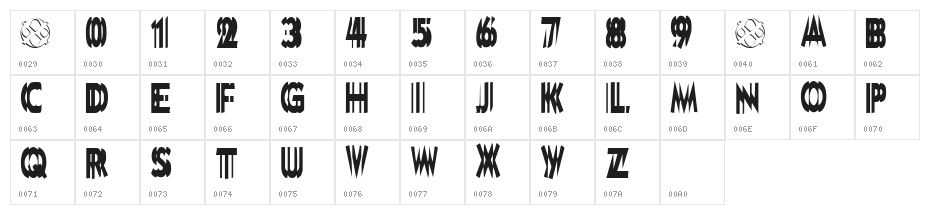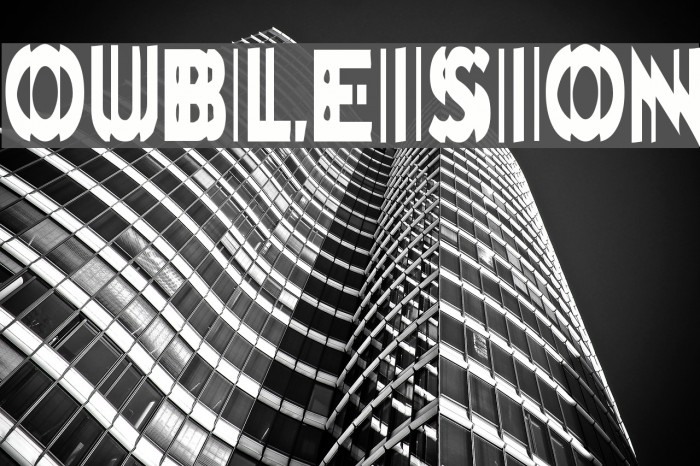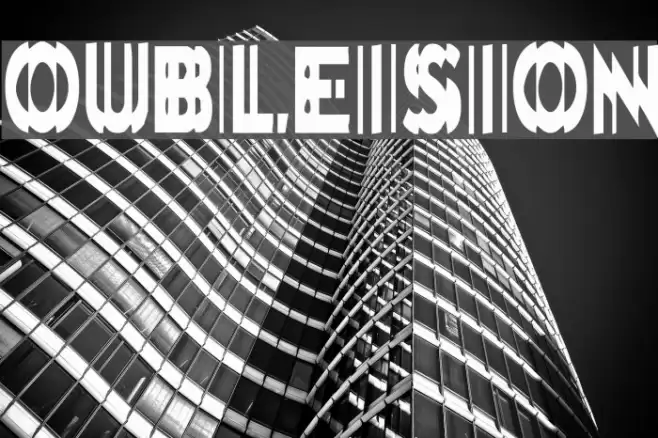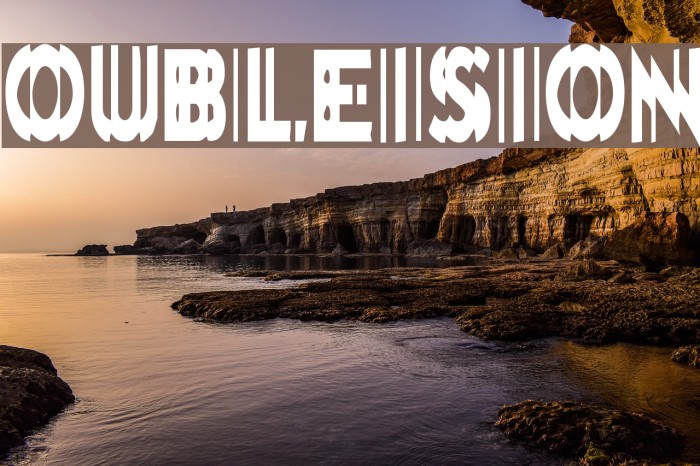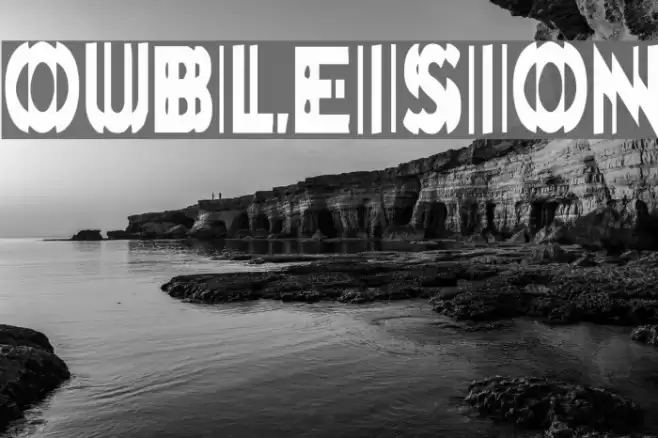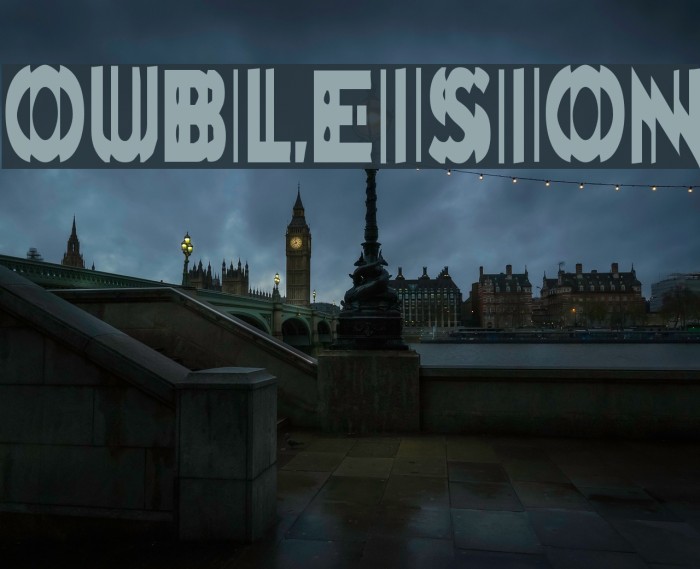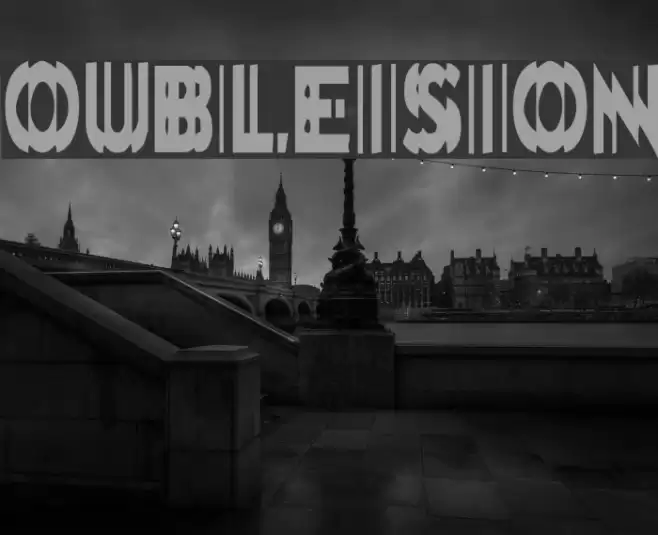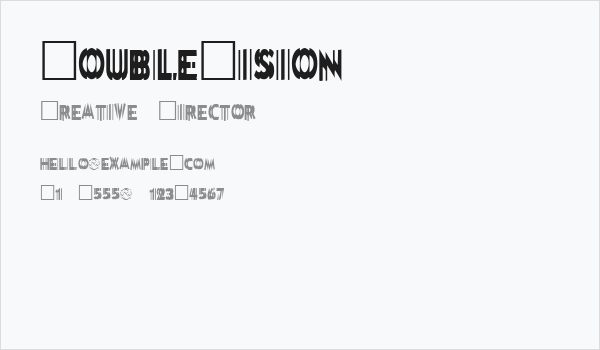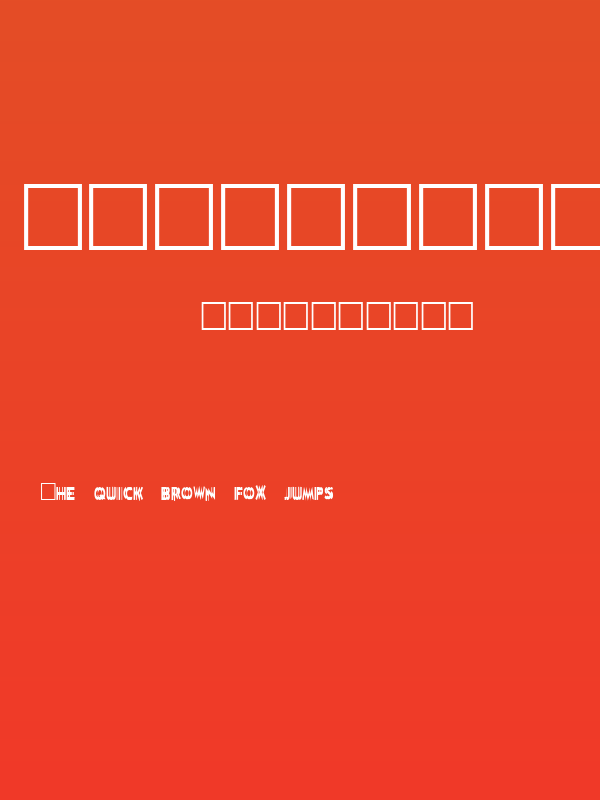
DoubleVision Font
DoubleVision Description
This font features a bold and dynamic style with a unique double-layered effect that gives the impression of movement or vibration. The characters are thick and robust, with a slightly condensed width, creating a strong visual impact. The design is highly stylized, with sharp angles and a modern aesthetic that draws attention. The numbers and letters maintain a consistent weight, enhancing readability despite the decorative elements. This font is ideal for projects that require a striking and memorable typeface.
| Proposed Projects | Perfect for posters, album covers, branding materials, and any design needing a bold statement. |